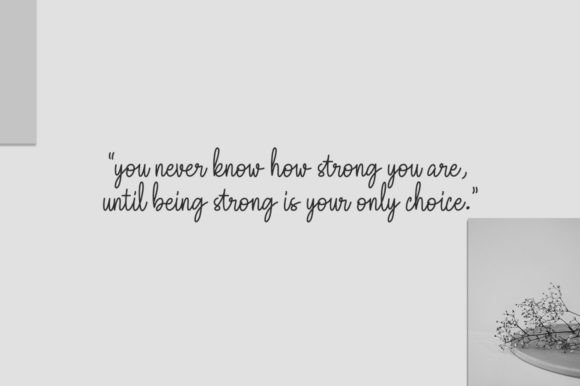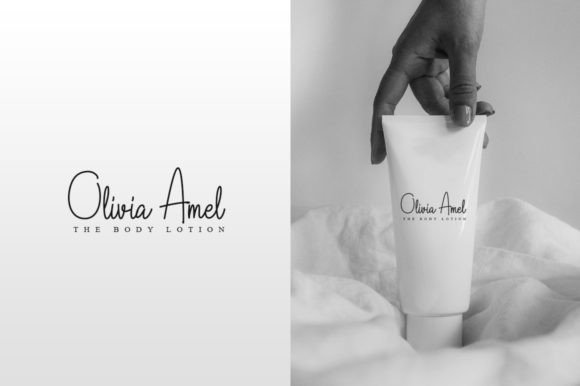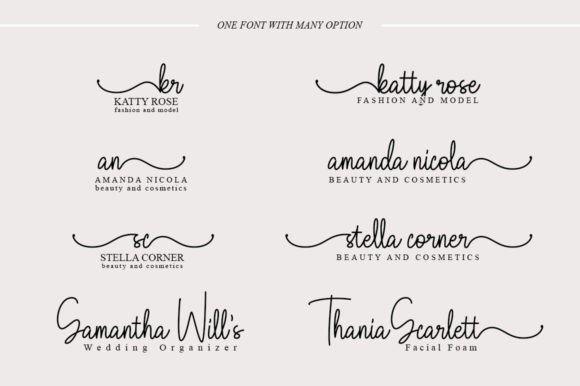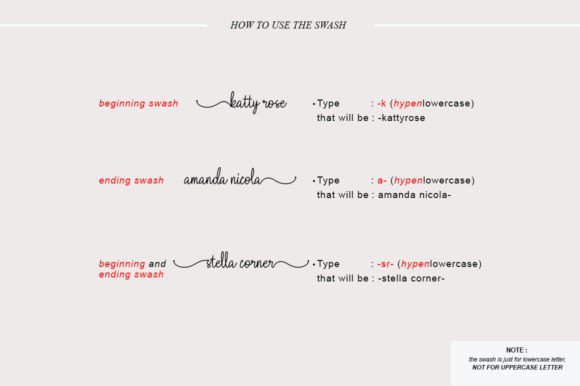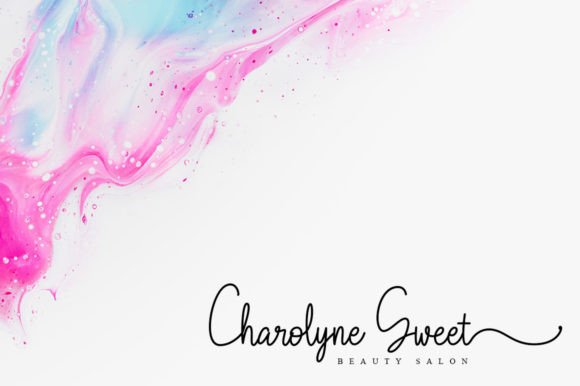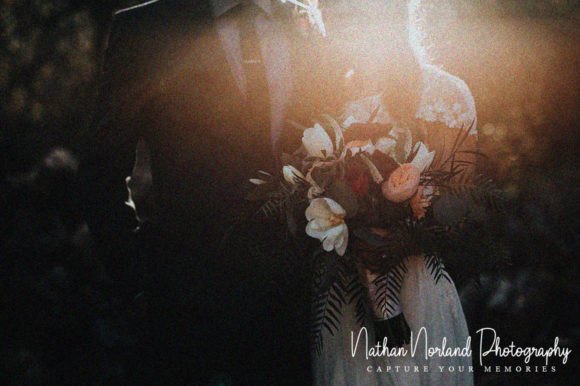
Introduction to Mary Geoise Font
Have you ever been working on a creative project, pouring your heart and soul into it, only to realize that the perfect font is missing? That’s a frustrating moment for any designer. But what if I told you that there’s a font that can bring your projects to life with its beautiful, natural handwriting style?
Enter Mary Geoise Font, a stunning script font that’s perfect for logos, quotes, weddings, product displays, and more. With its many ligatures and gorgeous swashes, this font is a design resource that’s sure to elevate your work. And the best part? It’s PUA encoded, making it easy to access all the glyphs and swashes you need.
Key Features of Mary Geoise Font
- High-quality font design suitable for creative projects, offering a unique aesthetic.
Honest Review: Mary Geoise Font
I recently stumbled upon the Mary Geoise Font and was excited to give it a try for my creative project. The font has a unique and quirky feel to it, which I think would be perfect for a blog or social media branding project.
- ✨ High-quality design with a unique aesthetic
- ✨ Versatile font suitable for various creative projects
- ✨ Transparent background for easy customization
However, I did notice that the font doesn’t come with as many style variations as some other fonts I’ve used. ⚠️ This might be a limitation for designers who want a lot of customization options.
Overall, I’m impressed with the Mary Geoise Font and would recommend it for designers looking for a free and high-quality font. It’s perfect for adding a touch of whimsy to your design projects.
Tips for Getting the Most Out of Mary Geoise Font
To get the most out of the Mary Geoise Font, use it in conjunction with other design elements such as images and graphics. Experiment with different font sizes, colors, and styles to create a unique design. Additionally, use the font with a transparent background to create a modern and sleek design element.
Common Use Cases for Mary Geoise Font
The Mary Geoise Font is commonly used in creative projects such as graphic design, digital art, and typography. It is also used in branding and marketing materials such as business cards, brochures, and websites. The font is ideal